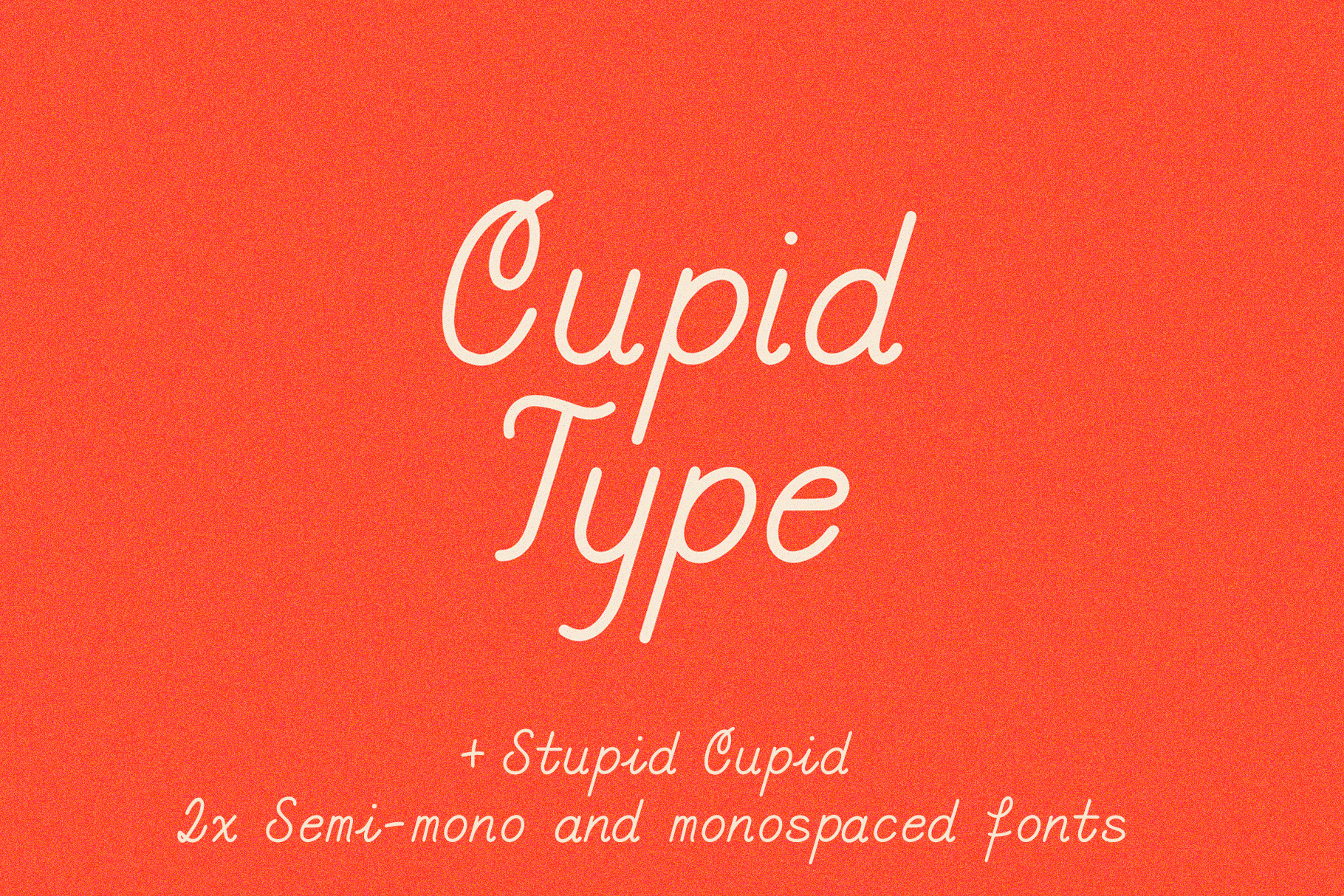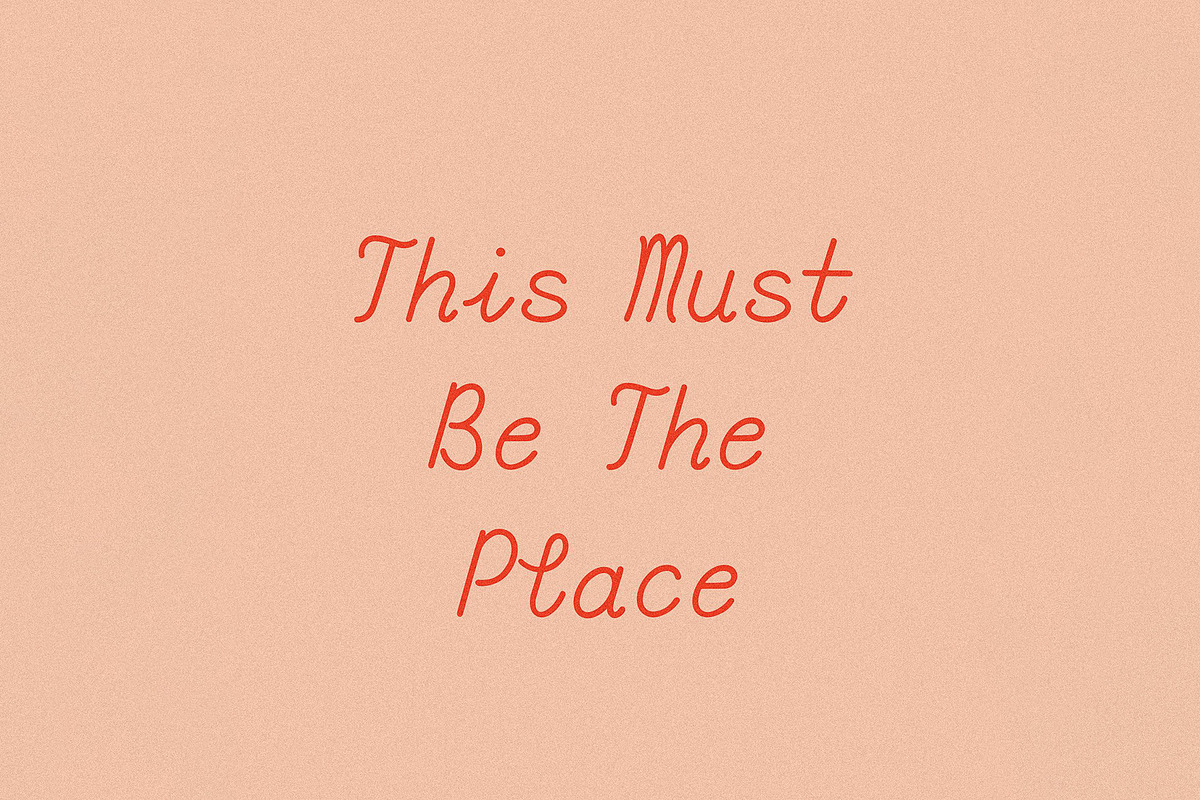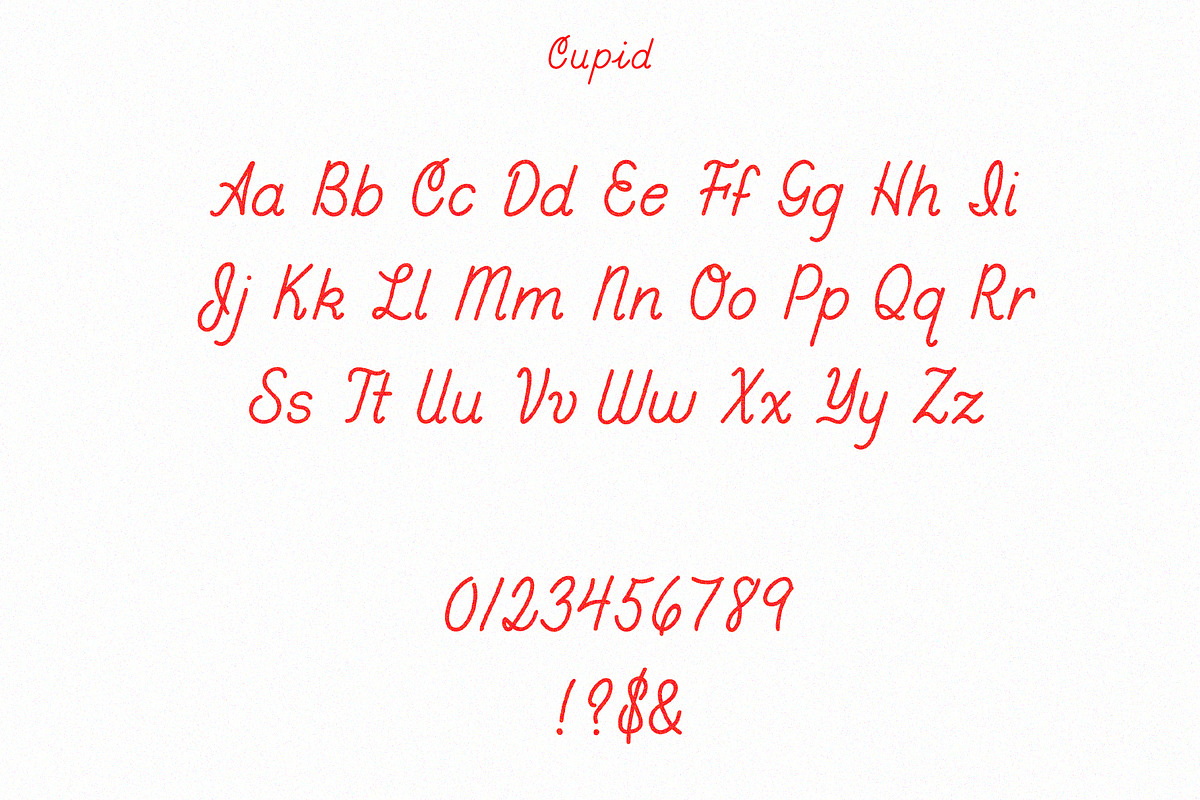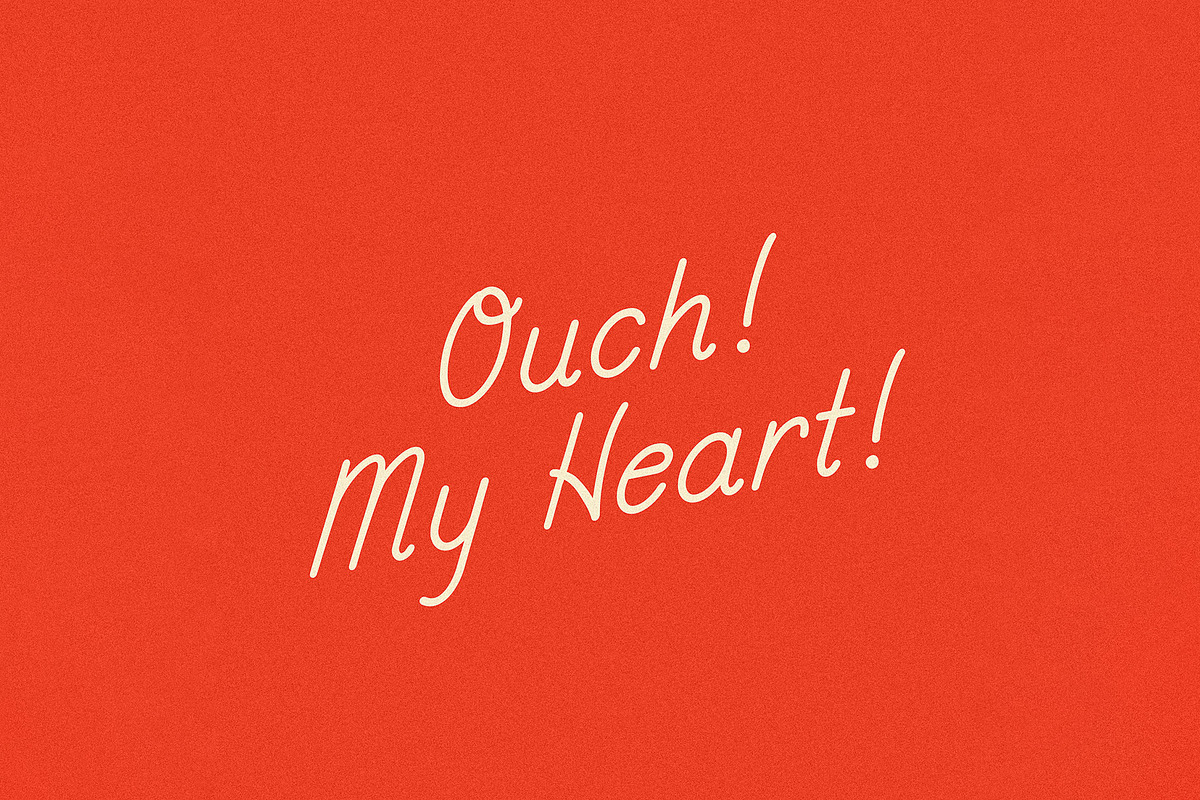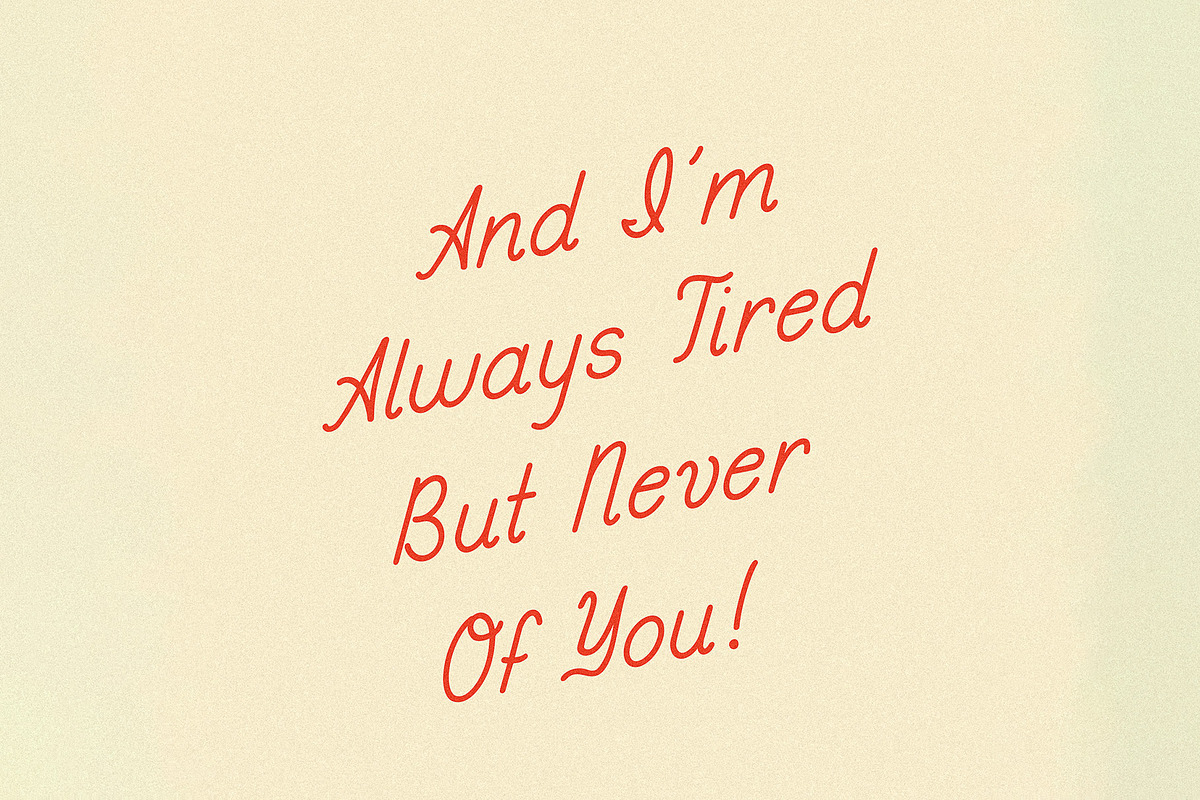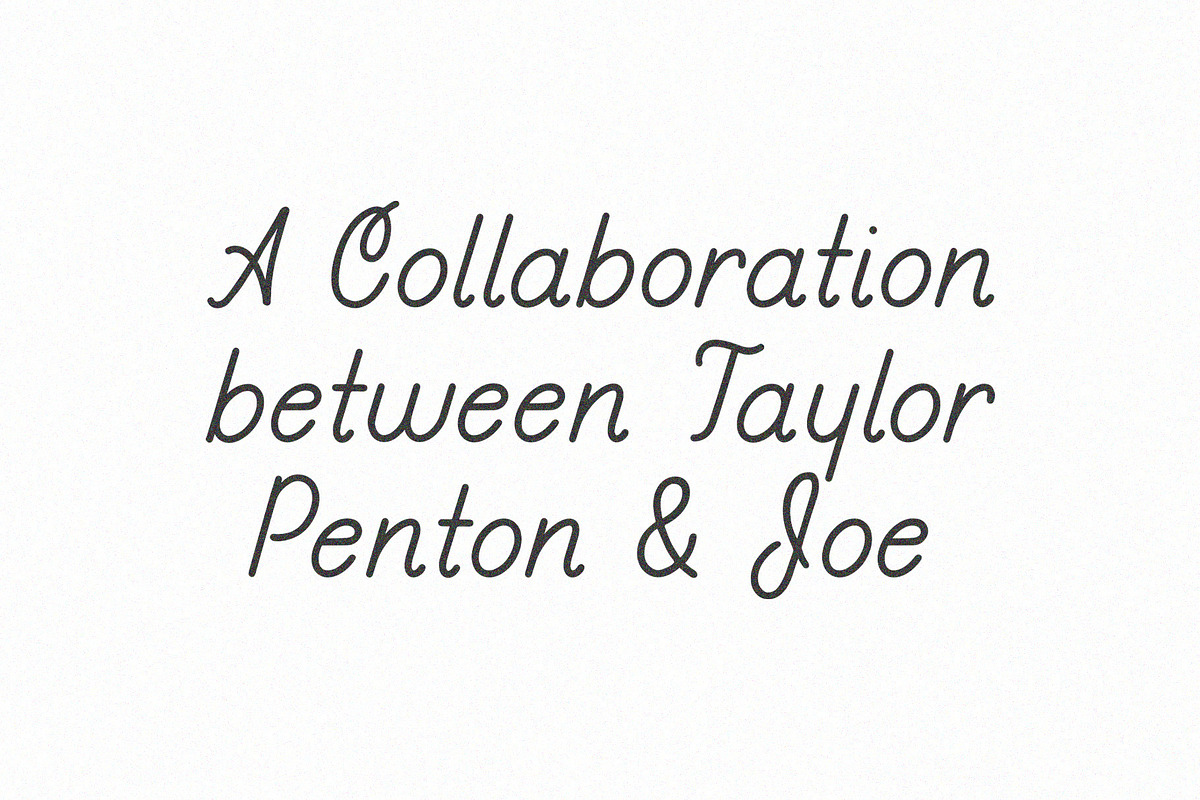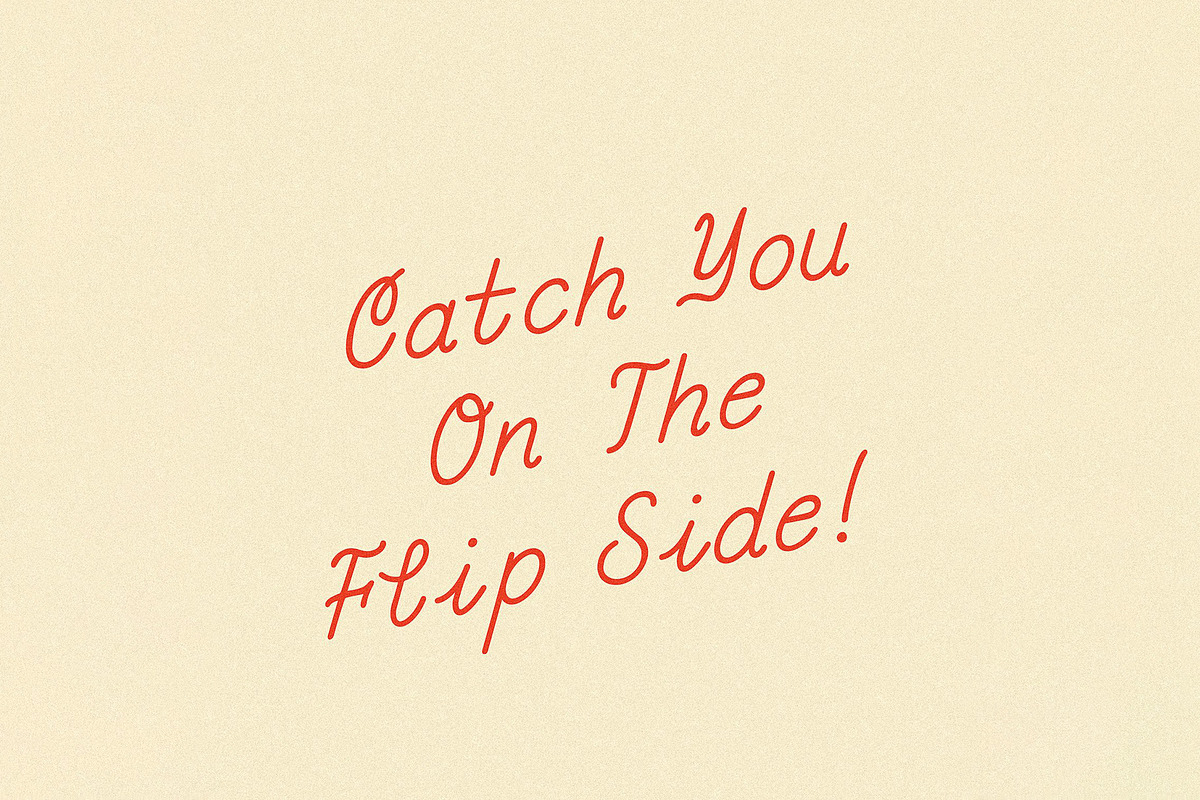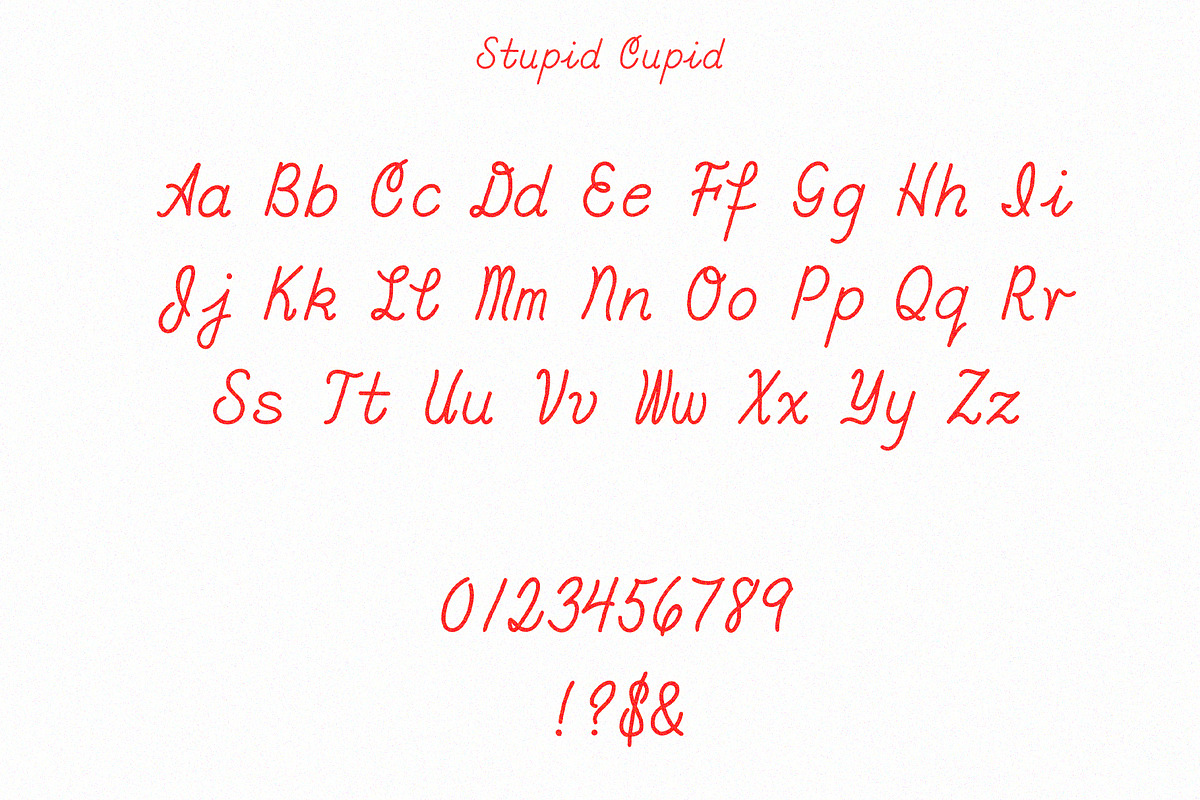
Cupid Font (+ bonus monospace font)
Cupid is a semi-monospaced typeface made in collaboration with the talented Taylor Penton. In Taylor's words, 'it’s basically taking your sister’s handwriting and polishing it up into something respectable'.
Cupid started life as a monospace font, but we kinda lost track along the way and ended up with a font that's neither monospaced nor... uh... not monospaced.
However! As two very indecisive individuals, we ultimately did end up also making a monospaced version of Cupid, which we've included at no extra cost!
Contains uppercase A-Z, alt. n, numbers 0-9, and basic punctuation.